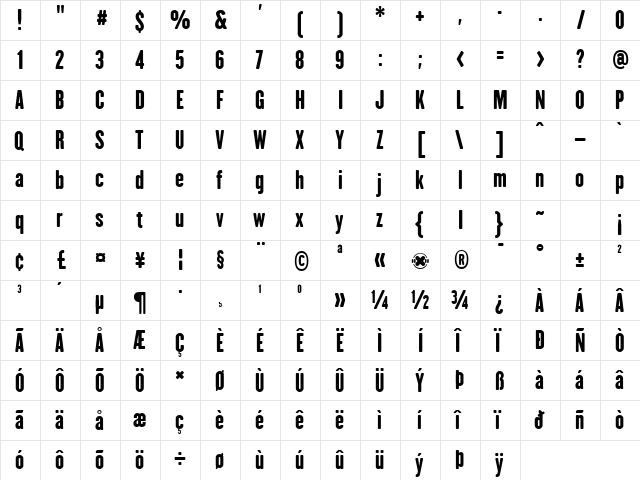
H.H. Samuel Regular
| Foundry | deFharo |
| Designer | deFharo |
Design Context for H.H. Samuel Typeface
H.H. Samuel takes a measured approach to typography — its balanced proportions and neutral character make it a reliable workhorse for both digital and print work.